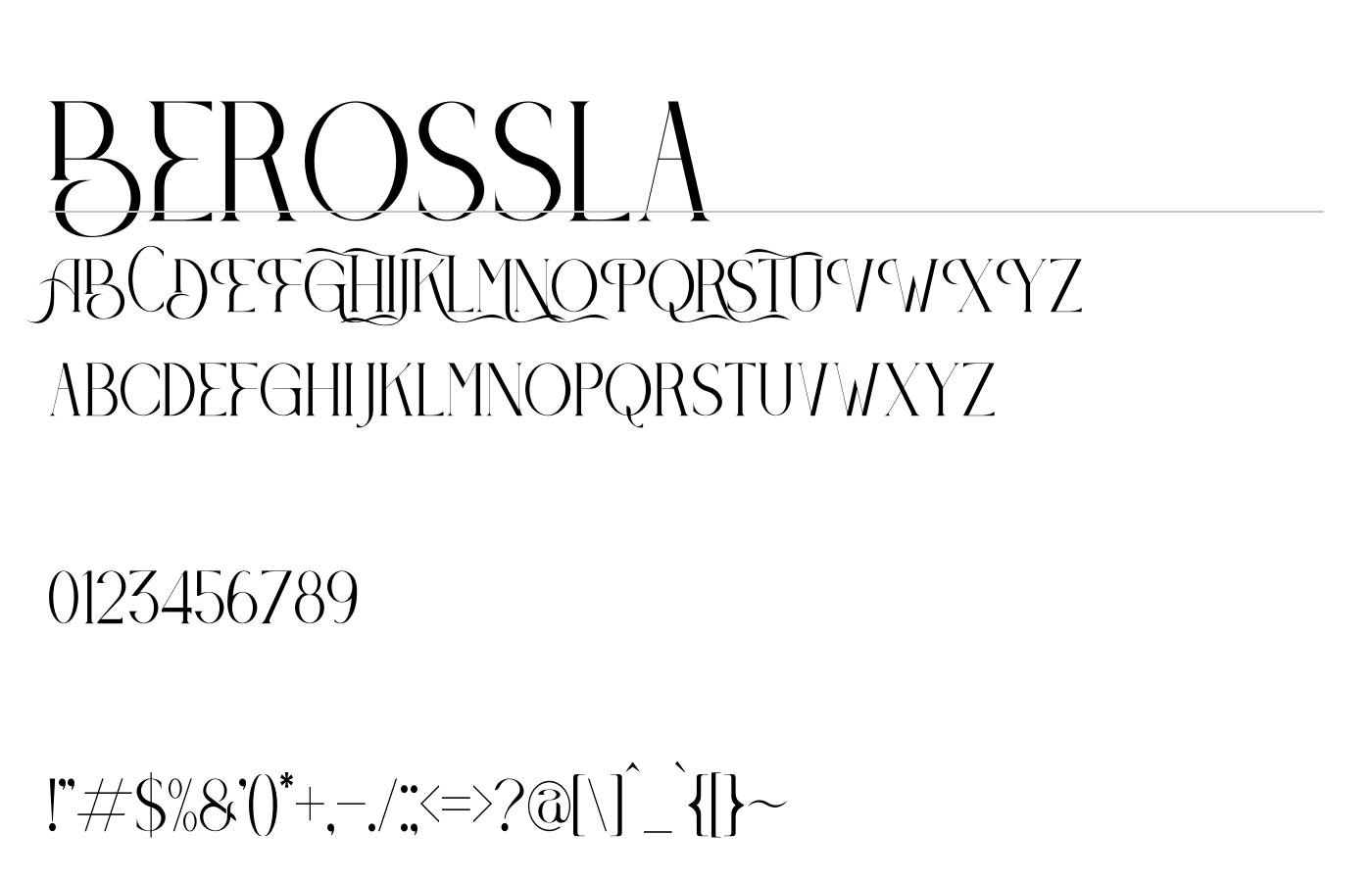
Berossla is a delicate serif font with a high contrast between its thin and thick strokes, featuring elegant, elongated letterforms that convey a refined, sophisticated style. Its slender, bracketed serifs and artistic swashes add a luxury, almost fashion-forward feel, making it ideal for upscale branding, editorial headlines, and stylish packaging where a graceful and unique look is desired. This font’s striking thin strokes and artistic flair make it perfect for making an elegant statement in large display use.
Berossla Font
About Berossla Font